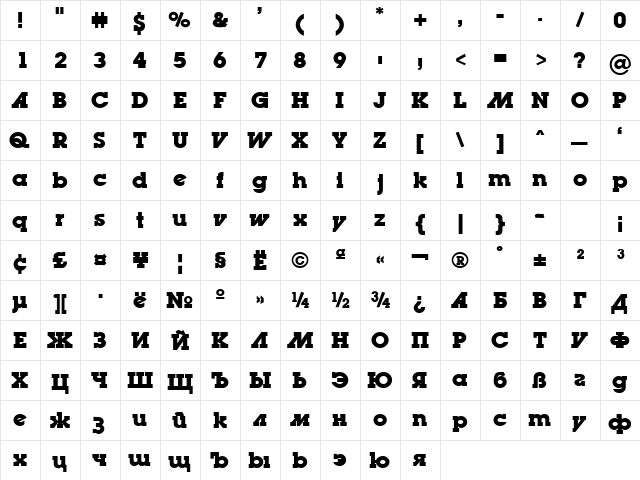
LugaAd Bold
Design Context for LugaAd Typeface
LugaAd is a composed and adaptable typeface that performs quietly and consistently across a wide range of design contexts. The heavy weight commands attention and anchors typographic hierarchies.